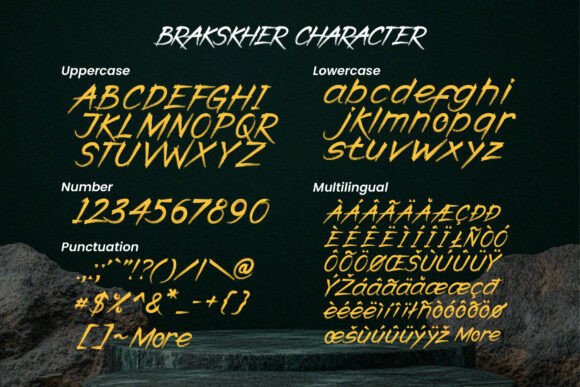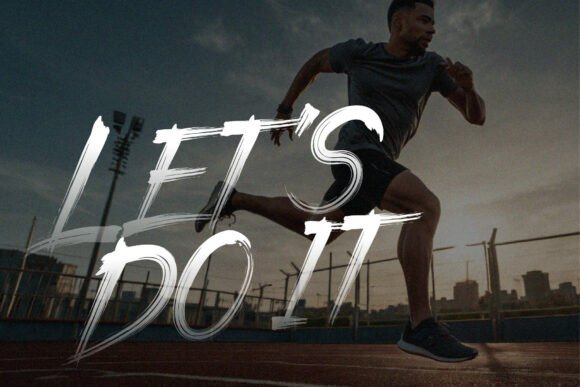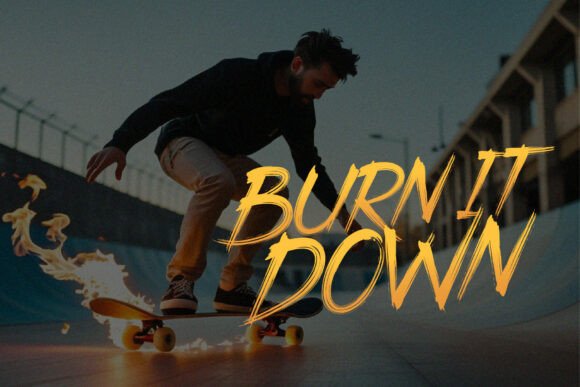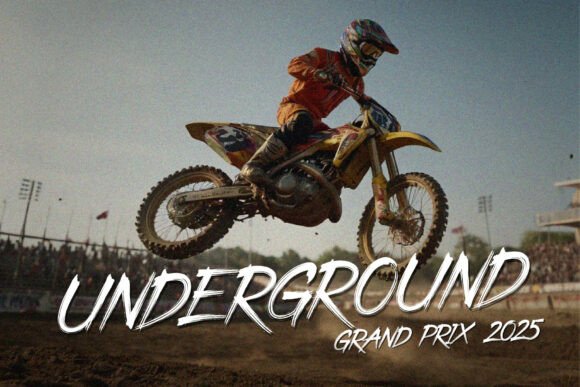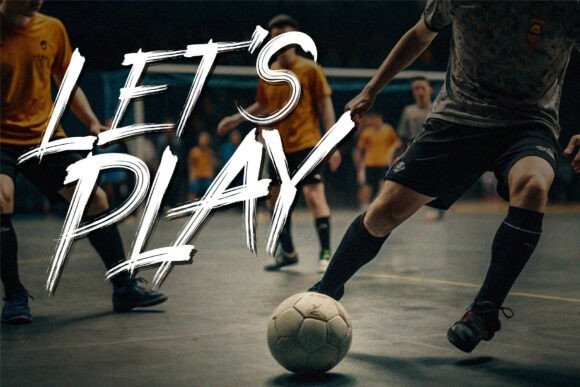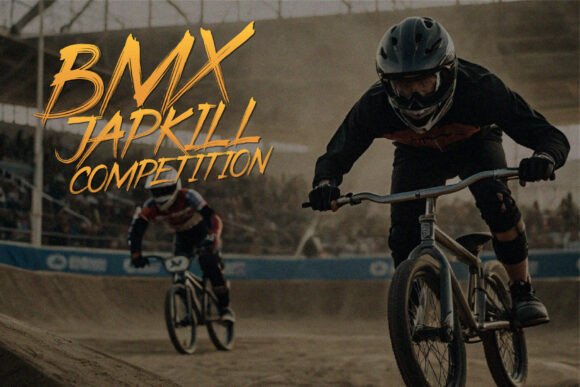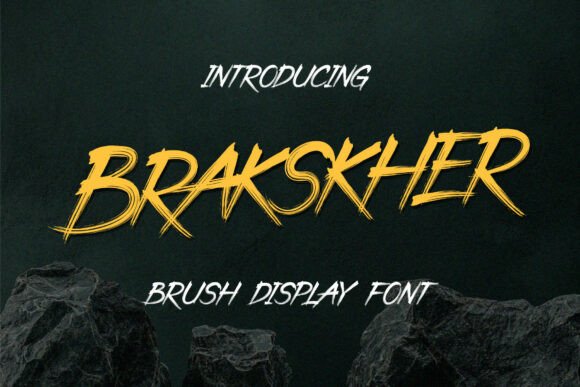
Unleashing Creative Energy with Brakskher Font
I still remember the frustration of working on a music poster project, searching for the perfect font that could capture the raw energy and rebellious spirit of the band. The usual sleek and modern fonts just weren’t cutting it – I needed something that could bring a dynamic, artistic touch to the design. That’s when I stumbled upon Brakskher, an expressive brush display font that instantly caught my attention. In this article, I’ll share my experience with Brakskher, its unique features, and how to make the most of it in your designs.
First Impressions: A Personal Review
As a designer, I’m always on the lookout for fonts that can elevate my work and make it stand out. Brakskher has been a game-changer in this regard. Here’s what I love about it:
- ✨ Expressive brush strokes: Brakskher’s natural, hand-crafted brush strokes add a level of authenticity and personality to any design.
- ✅ Perfect for bold statements: This font is designed to demand attention, making it ideal for posters, social media graphics, and other eye-catching materials.
- 💯 Versatile and adaptable: Despite its bold nature, Brakskher can be used in various contexts, from streetwear branding to product packaging.
Of course, no font is perfect, and Brakskher has a few quirks:
- 🤔 Legibility at small sizes: As with many display fonts, Brakskher can become tricky to read at smaller sizes. It’s best used at larger sizes where its unique character can shine.
- ⚠️ Limited use in formal contexts: Brakskher’s bold, expressive nature makes it less suitable for formal or traditional designs, such as corporate branding or official documents.
Exploring Alternatives to Brakskher
- Kritika: A bold, stencil-like font with a strong military and industrial vibe. Best for edgy designs and tech-related branding.
- Brotherhood: A graffiti-inspired font with a strong streetwear feel. Ideal for fashion and lifestyle brands that want to make a bold statement.
- Painted Lady: A more whimsical, hand-painted font with a feminine touch. Suitable for creative projects that require a softer, yet expressive typography.
- Blackadder: A script font with a dynamic, brush-written feel. Great for adding a personal, artistic touch to invitations, posters, and more.
The Story Behind Brakskher
Brakskher was crafted with the intention of capturing the raw energy and rebellious spirit of street art and music. Its designer aimed to create a font that would not only stand out but also inspire creativity and boldness in design. By combining rough textures with fluid curves, Brakskher embodies a unique blend of grit and style.
- Q: Is Brakskher suitable for body text?
- A: No, Brakskher is best used for display purposes due to its bold and expressive nature. For body text, consider a more legible font.